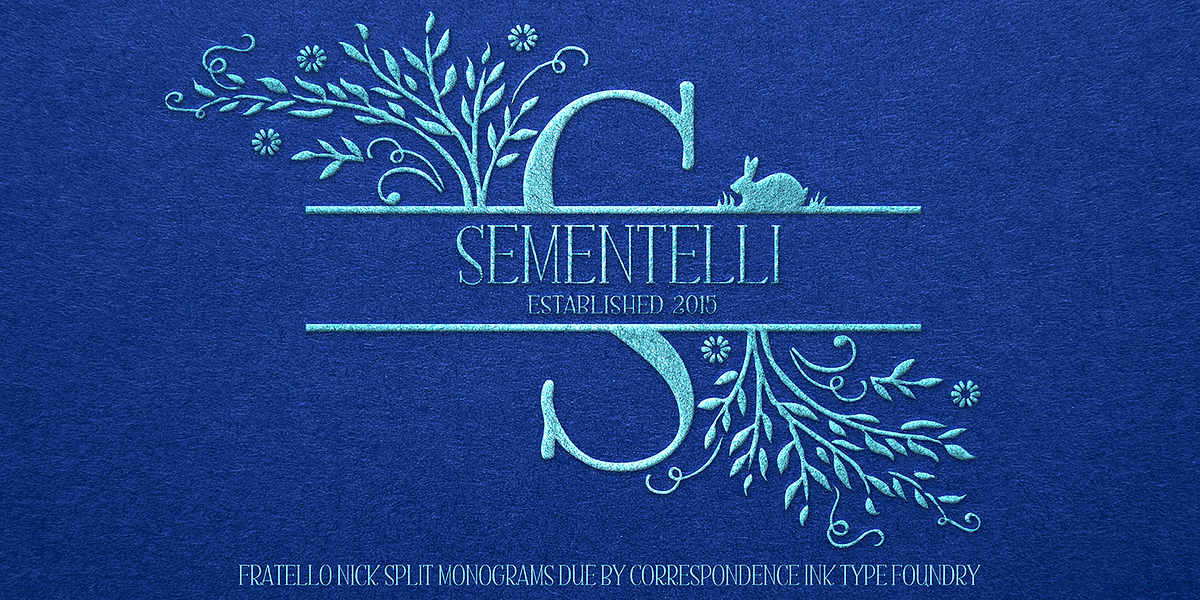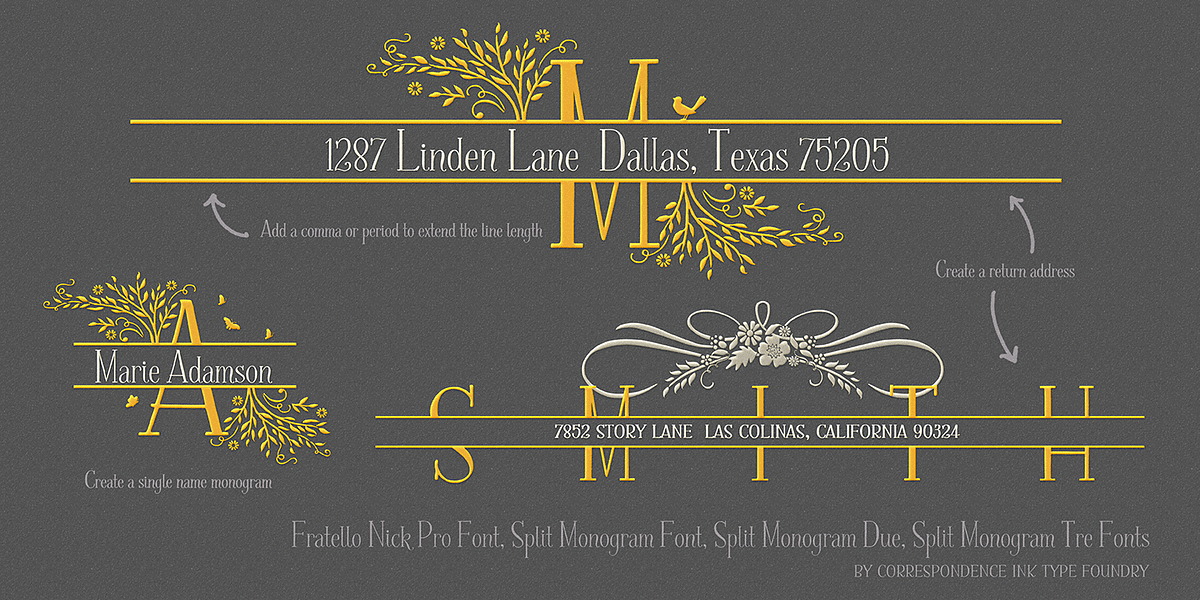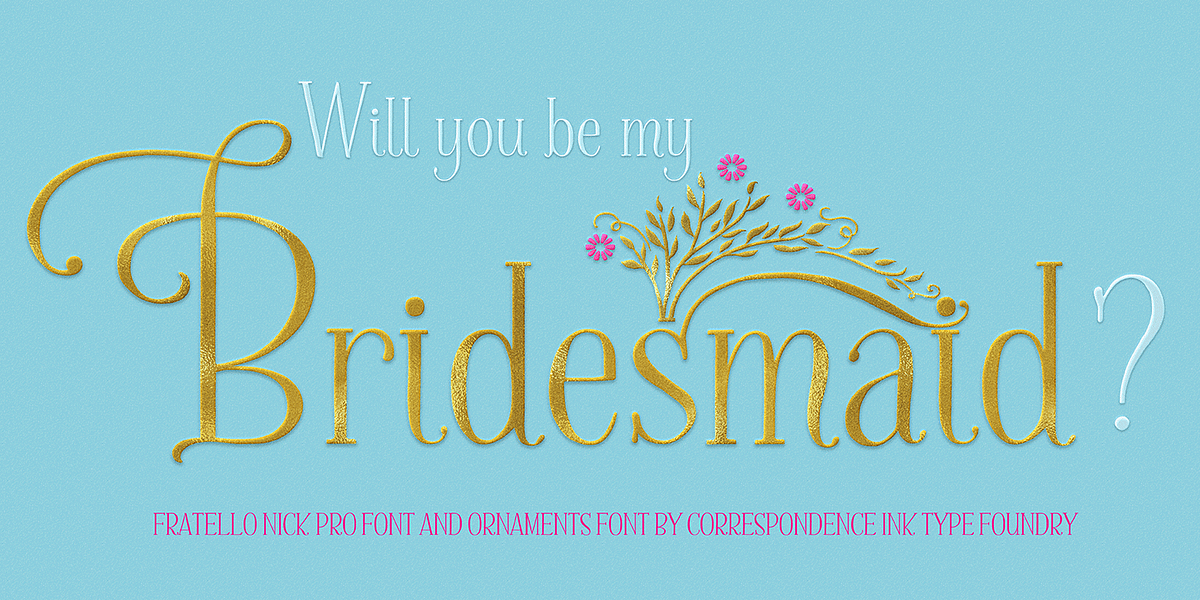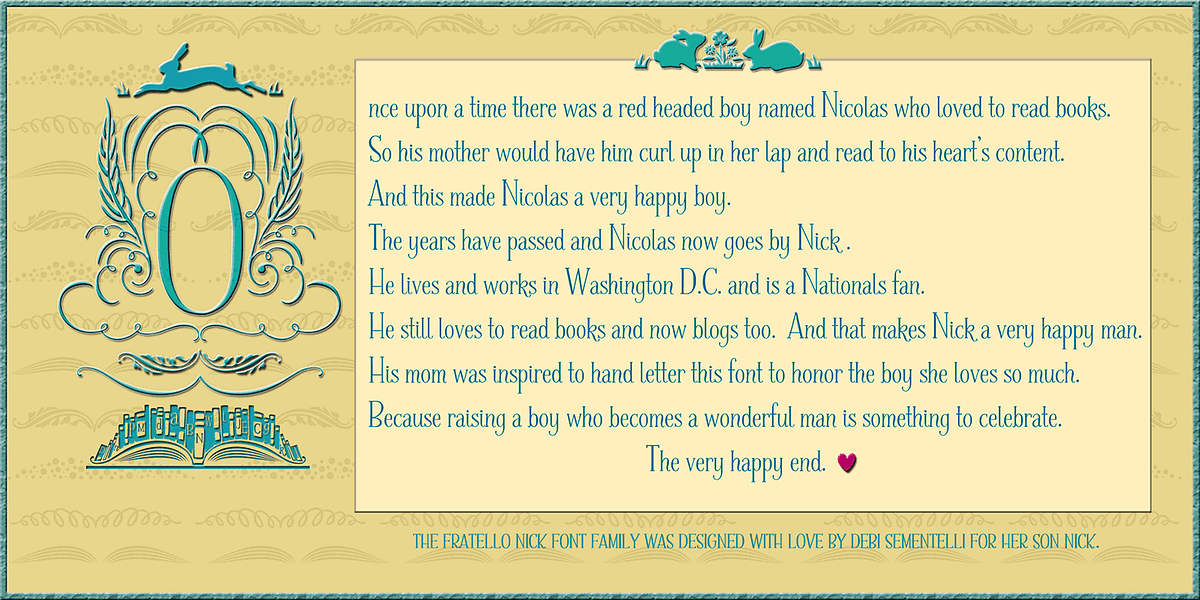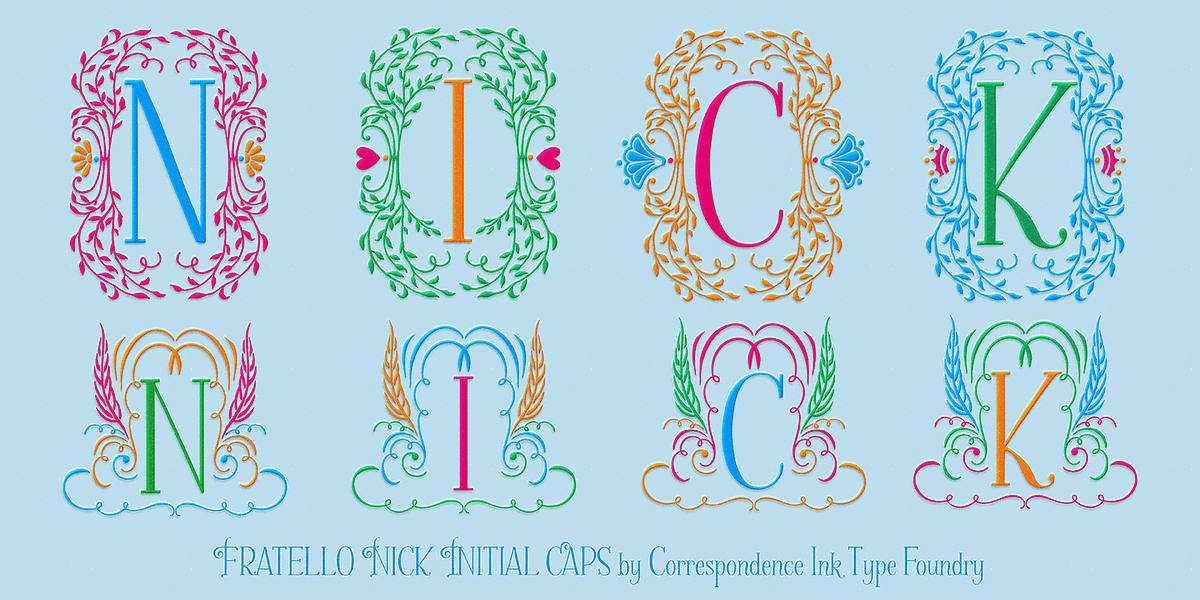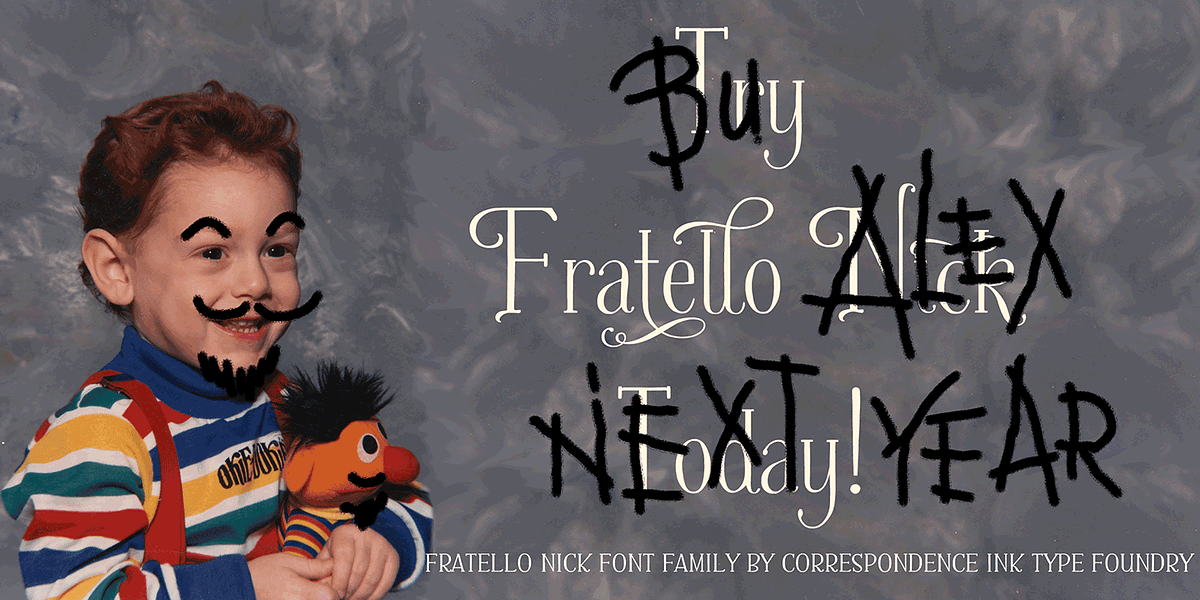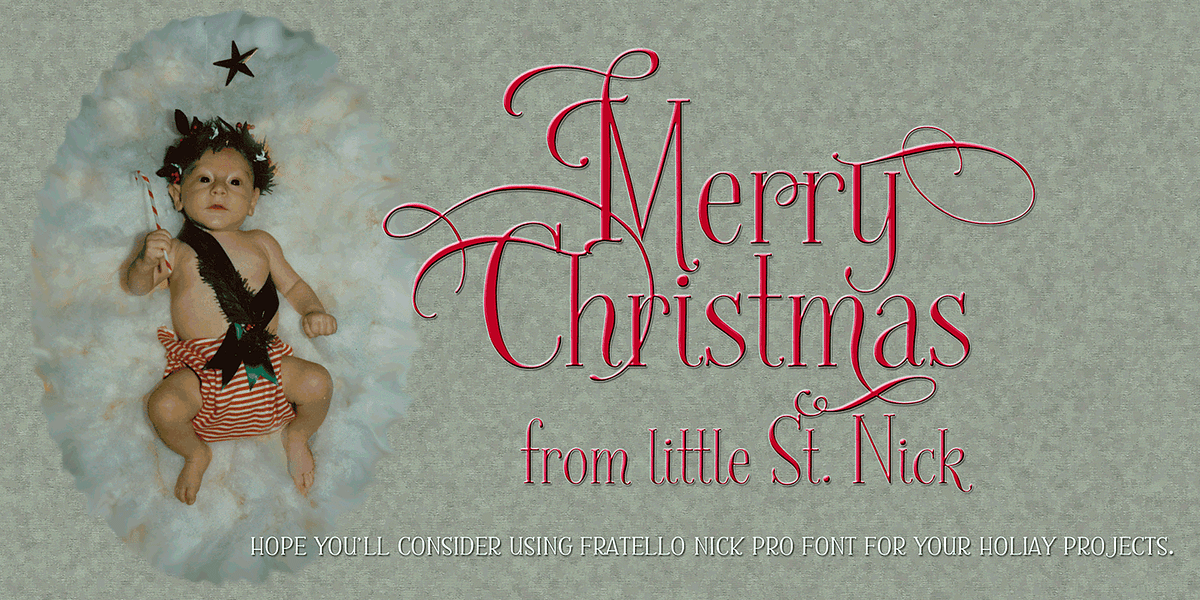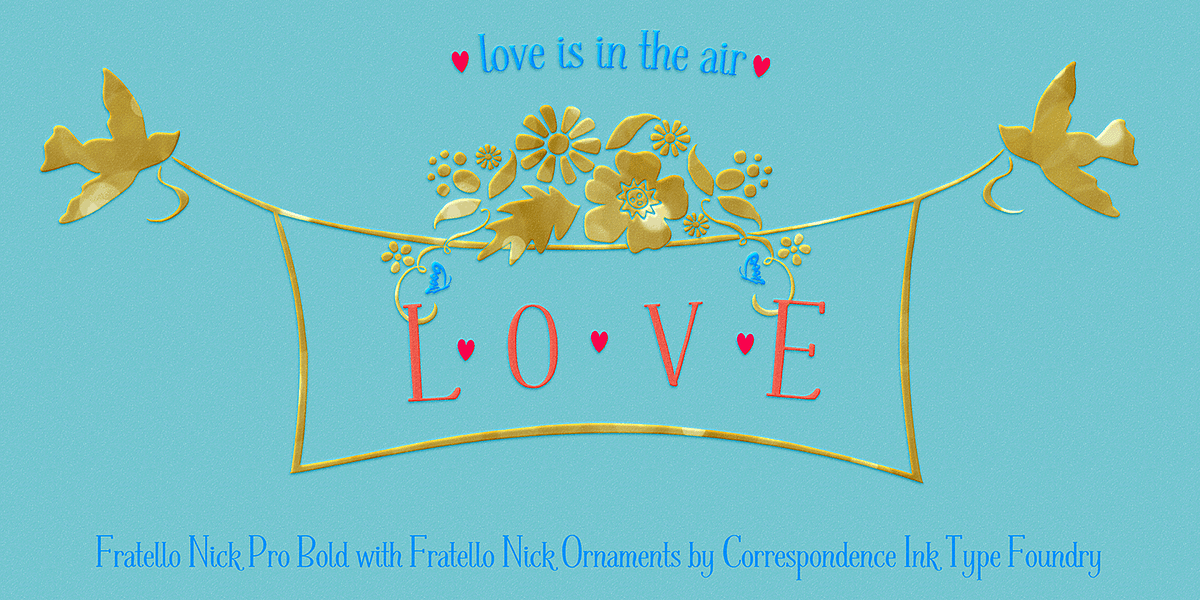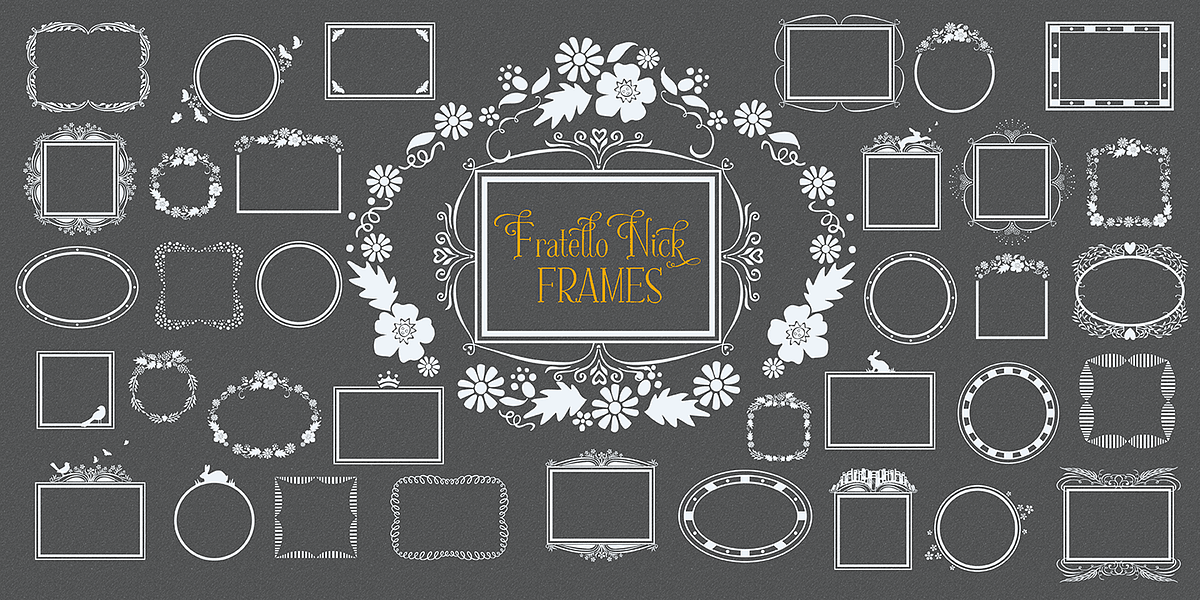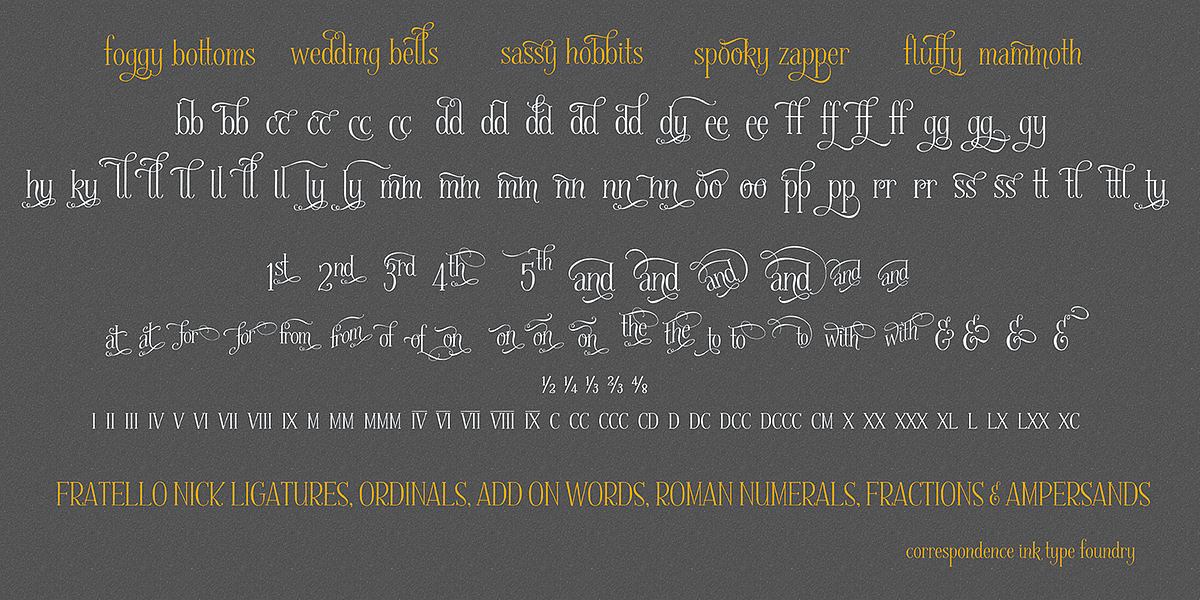
Fratello Nick
Fratello Nick is a charming and playful hand-lettered script font inspired by the designer's son. It features a variety of weights and styles, including casual script letters with flourishes, initial caps, ornaments, frames, and monograms. The font includes dingbats like butterflies and bunnies, adding a whimsical touch. Its versatility makes it suitable for diverse projects, from wedding invitations to branding and crafting.